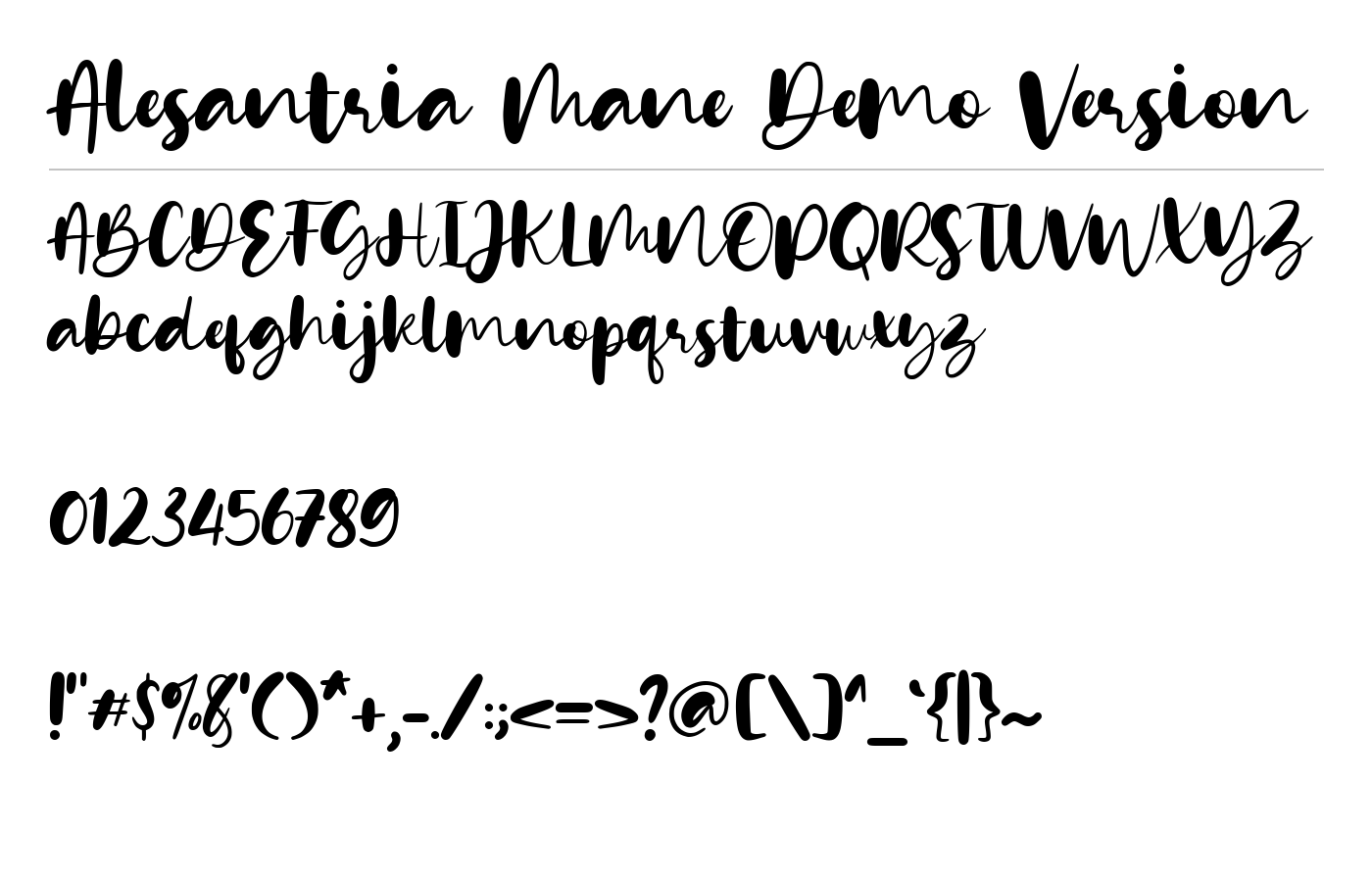
Alesantria Mane Demo Version is a lively and expressive script font with a strong handwritten feel, showcasing bold strokes and playful curves that bring warmth and personality to any design. Its moderate contrast and smooth, flowing letterforms make it ideal for creative projects like logos, invitations, social media, and branding that seek a friendly yet stylish touch. This font works best for headings and short text where its unique character can truly shine.
Alesantria Mane Demo Version Font